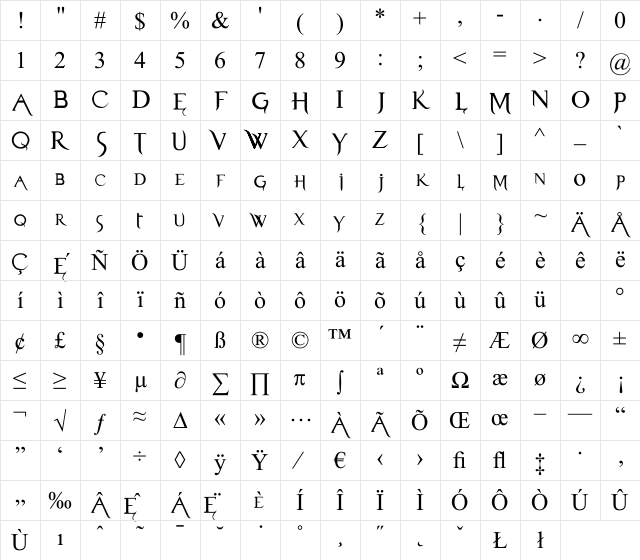
Evanescence Regular Free Font
Evanescence Regular
Foundry: High-Logic
Designer: High-Logic - Erwin Denissen
Complete Evanescence Regular glyph index. Displaying only characters natively supported by Evanescence Regular font.
Design Context for Evanescence
Evanescence is a composed and adaptable typeface that performs quietly and consistently across a wide range of design contexts.